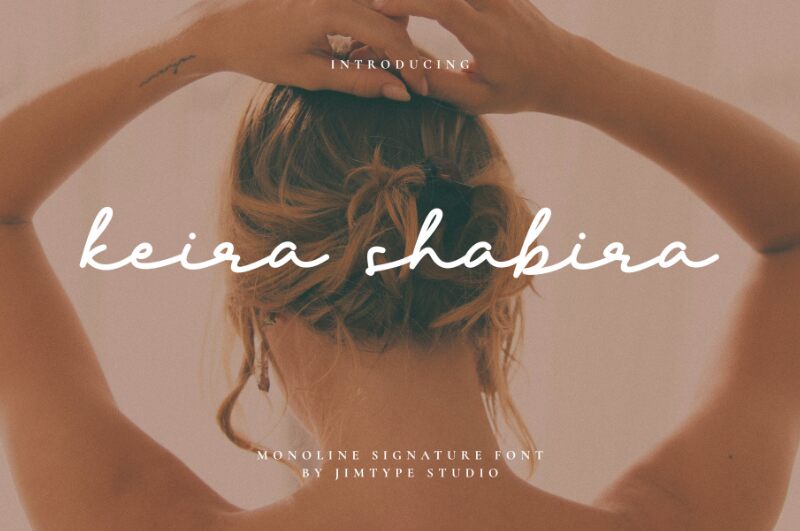
The Keira Shabira font, crafted by Jimtype Studio, exudes a captivating, handwritten elegance. Its light, signature-like strokes evoke a sense of personalized charm, inviting the viewer to explore its nuanced, expressive lines. This versatile font seamlessly blends a touch of sophistication with a natural, organic flow, making it an ideal choice for a wide range of design applications.
The Keira Shabira font's understated charm and refined aesthetic lend themselves beautifully to branding, editorial, and product design projects. Its unique character and versatility make it a compelling option for creating impactful logos, captivating headlines, and personalized stationery. Whether incorporated into digital or print media, the Keira Shabira font has the power to elevate the overall aesthetic and leave a lasting impression on the viewer.